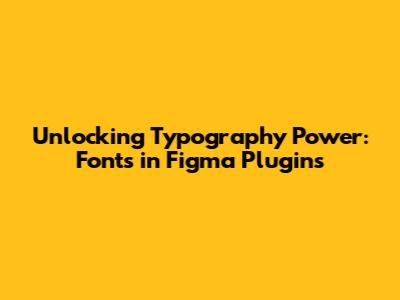
Unlocking Typography Power: Fonts In Figma Plugins
Hey design enthusiasts, are you ready to level up your Figma game? Let's dive into the amazing world of fonts in Figma plugins! Understanding and mastering fonts is crucial for any designer, and with the help of plugins, you can streamline your workflow, discover new font combinations, and create stunning designs that truly stand out. We'll explore how these plugins work, the best ones to use, and how they can supercharge your creative process. Let's get started, shall we?
The Power of Typography in Figma
Typography isn't just about picking pretty letters; it's the art and technique of arranging type to make written language legible, readable, and appealing when displayed. It's a critical element in design, impacting everything from the mood of your design to its overall effectiveness. A well-chosen font and its careful application can significantly enhance user experience, convey your message effectively, and reinforce your brand's identity. Imagine a website using a playful, rounded font versus a sleek, modern sans-serif. The vibe changes completely, right? That's the power of typography!
Figma makes it easy to work with fonts, offering a variety of text tools for adding, editing, and formatting text layers. However, when you start working on larger projects, or if you're looking for more advanced font management and discovery tools, that's where Figma plugins come into play. They are like your secret weapons, enhancing Figma's capabilities and providing you with a ton of extra features. They can help you with everything from font pairing and organizing your font library to previewing your text in different styles and sizes. Essentially, fonts in Figma plugins are your best friends when creating professional and eye-catching designs.
Why Fonts Matter for Designers
For designers, fonts are the building blocks of visual communication. They can evoke emotions, establish brand identity, and guide users through your design. Let's look at why understanding and selecting fonts is so important.
- Brand Consistency: Fonts help maintain a consistent brand identity across all platforms. Using the same fonts in your website, app, and marketing materials reinforces brand recognition and professionalism.
- Enhanced Readability: Choosing the right font can make or break your design's readability. Fonts that are easy to read improve user experience and ensure your message is communicated clearly.
- Emotional Impact: Fonts have personalities. They can be serious, playful, elegant, or modern. The right font choice evokes the desired emotions and sets the tone for your design.
- Improved User Experience: Good typography leads to better user experience. Well-formatted text is easier to scan, making it more likely that users will engage with your content.
- Professionalism: Using high-quality fonts and applying typography principles correctly shows that you're committed to delivering a polished and professional product. It's all about making your designs look great!
As you can see, the correct use of fonts directly impacts the effectiveness of your designs. So, letâs explore how Figma plugins can help you master the art of typography.
Best Figma Plugins for Font Management and Discovery
Alright, let's explore some of the best Figma plugins for font management and discovery. These plugins will help you find the perfect fonts, organize your library, and apply them seamlessly to your designs. Prepare to have your mind blown!
Font Discovery Plugins
- Font Pair: This plugin, from the folks over at Google Fonts, is a must-have for anyone looking to create perfect font pairings. Font Pair suggests fantastic font combinations based on your needs. It's like having a typography expert in your back pocket. It's easy to use and provides a wide selection of Google Fonts, allowing you to quickly and easily find the perfect match for your design projects.
- Type Scale: Are you unsure about the perfect sizes and styles for your fonts? Type Scale helps you generate a typographic scale based on a base font size and a ratio. This plugin helps create harmonious and visually balanced text hierarchies, making your designs look professional and well-structured. It's perfect for creating perfect body text, headings, and subheadings.
- WhatTheFont: Ever seen a font in the wild and just had to know what it was? This plugin makes identifying fonts from images ridiculously easy. It is a font identification plugin by MyFonts that helps you identify fonts from images. Just upload an image, and it will analyze the text and suggest similar fonts. It's like having a detective for fonts!
Font Management Plugins
- Font Awesome: A super useful plugin for accessing a vast library of scalable vector icons. While not solely focused on fonts, this plugin allows you to easily incorporate icons into your designs. It is ideal for adding visual elements to your designs and improving the overall user experience. It supports a lot of various icons and it makes the design much easier.
- RightFont: RightFont is a powerful font manager that helps you organize and manage your fonts, as well as preview them directly in Figma. It's perfect for designers with large font libraries. You can preview fonts, create font collections, and activate/deactivate fonts as needed, so your workflow will be efficient.
- Google Fonts: A simple plugin that gives you direct access to the Google Fonts library. You can browse, search, and apply fonts to your text layers directly from the plugin. It's super handy for accessing a massive variety of free fonts. With this plugin, you will always be sure to find the best font in no time.
These plugins provide you with great functionality that can help simplify your design process. Using these plugins, you can find the perfect fonts and manage your collection with ease.
How to Use Fonts in Figma Plugins for Maximum Impact
So, youâve got these awesome plugins. Now, how do you put them to work? Let's talk about how to use fonts in Figma plugins for maximum impact in your design projects.
Step-by-Step Guide
- Install the Plugin: First, you'll need to install your chosen plugin from the Figma Community. Open Figma, go to the âCommunityâ tab, search for the plugin, and click âInstall.â Itâs super simple.
- Open the Plugin: Once installed, open your Figma file. Right-click on your canvas, go to âPlugins,â and select the plugin you want to use. This is where the magic starts!
- Explore and Discover: Use the plugin's features to discover new fonts, explore font pairings, or identify fonts from images. Play around, try different options, and see what works best for your project.
- Apply Fonts to Your Design: Once you've found the perfect font, apply it to your text layers. Most plugins make this process seamless, allowing you to change fonts with just a few clicks.
- Experiment and Iterate: Don't be afraid to experiment! Try different font combinations, sizes, and styles. Iterate on your designs until you achieve the desired visual impact and make sure your designs are perfect.
Tips and Tricks
- Plan Your Typography: Before you start, think about the purpose of your design and the tone you want to set. Do you want something formal, playful, or modern? Planning your typography in advance can help you choose the right fonts and create a cohesive design.
- Balance and Hierarchy: Create visual interest by varying font sizes, weights, and styles. Make sure that your text is easy to read and that the most important information stands out.
- Use Font Pairing Wisely: Combining fonts can create beautiful and unique designs, but make sure the fonts complement each other. Try to use fonts that have similar styles or different personalities to create a balanced design.
- Preview and Test: Always preview your text in different sizes and styles to make sure it looks good on various devices and screens. This way, youâll be able to ensure that your design is perfect.
By following these steps and using the tips and tricks above, you can use fonts in Figma plugins effectively to create stunning designs.
Conclusion: Elevate Your Designs with Figma Plugins
So, there you have it, folks! Now you have everything you need to start using fonts in Figma plugins to their full potential. From finding the perfect font pairings to managing your ever-growing font library, these plugins offer a ton of features that can help you streamline your workflow and create stunning designs. With the right fonts and plugin tools, you can transform your designs from good to amazing.
Remember, typography is more than just choosing pretty letters; it's about conveying your message, establishing your brand, and enhancing the user experience. By mastering these tools, you'll be well on your way to creating designs that look amazing, engage your audience, and truly stand out.